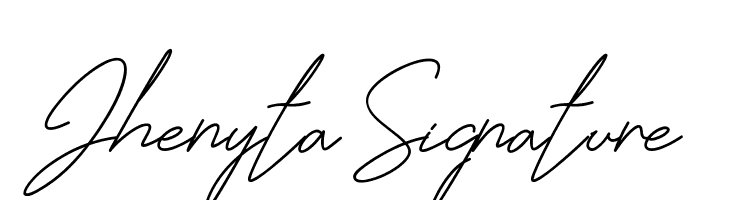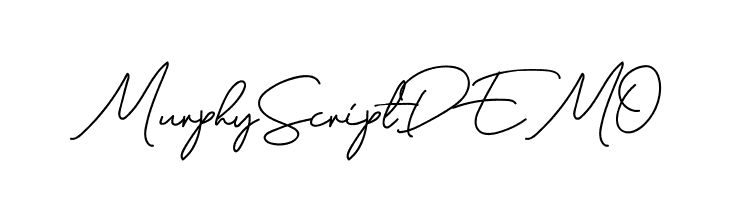
An elegant, flowing script font with a natural handwriting style.
A graceful script font with fluid, connected strokes and a natural handwriting style.
A lively, flowing script font with elegant loops and a natural handwriting style.
A smooth, flowing script font with a natural handwriting style.
A lively and expressive script font with flowing, natural handwriting style.
An elegant cursive script font with interconnected letters and a natural handwriting style.
A fluid and elegant script font with a natural handwriting style.
A flowing, cursive script font with elegant loops and natural handwriting style.
A fluid and elegant script font with a natural handwriting style.
A graceful, cursive font with interconnected letters and a natural handwriting style.